When it comes to headlines, bold fonts can make all the difference. Bold fonts can grab the attention of a reader and draw them in to read more. They can also help to convey a specific message or mood. With so many bold fonts available, it can be difficult to decide which one to use for headlines. That’s why we narrowed it down for you, and we’re sharing our Top 5 favorite Bold fonts that are perfect for headlines! What are you waiting for, check it out!
Bold Fonts of Headlines
These bold fonts have been chosen because they are powerful, eye-catching, and effective at conveying emotion. Each font is unique and can be used to create a different look and feel that can help to make a headline stand out and draw readers in. Each font has its own characteristics, so it is important to understand how these characteristics can be used to create the desired effect. Do take note that these fonts have their own respective licenses for commercial and personal use.
SUPR – Bold Condensed Display Font
SUPR is a bold and condensed font that takes its inspiration from the world of sports. This font features slanted characters, giving it an energetic and athletic appearance. It is perfect for logos and large texts but can also be used in a variety of other ways. SUPR has an eye-catching and powerful look, making it an ideal choice for headlines and other typographic needs.
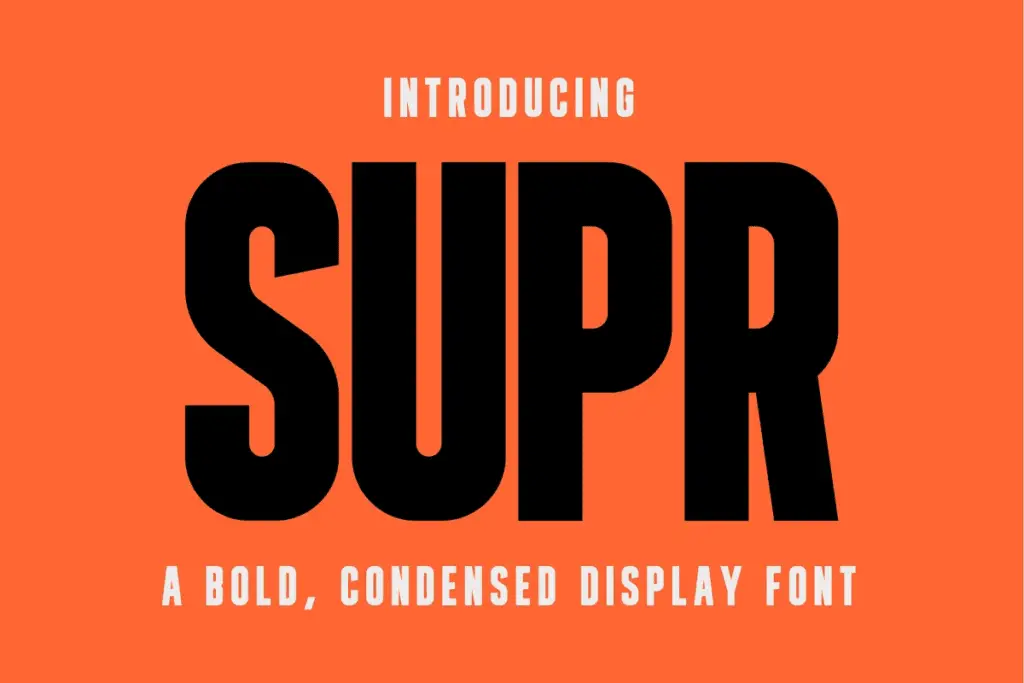
Mohan Bold Font
The Mohan font has a strong, bold look that makes it perfect for headlines and logos. Its minimalistic and elegant design adds a touch of elegance with fun to any project. The font also features a wide range of alternative characters and ornaments, as well as multilingual support and unique ligatures. Mohan is the perfect choice for any project that requires a bold, minimalist, elegant, and fancy font!
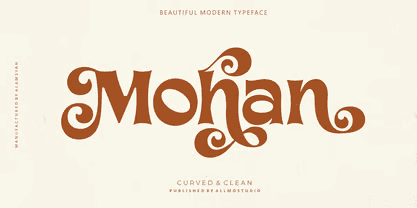
Cheapsman Sans Serif Bold Font
Cheapsman Font is a bold and eye-catching sans serif display font with four styles: Regular, Outline, Extruded, and Slant. This font has a built-in range of alternate letters and ligatures, allowing users to create unique and striking designs with ease. It features a strong and powerful look that makes it ideal for headlines and logos. Cheapsman Font is a great choice for any project that needs a bold and dynamic font.
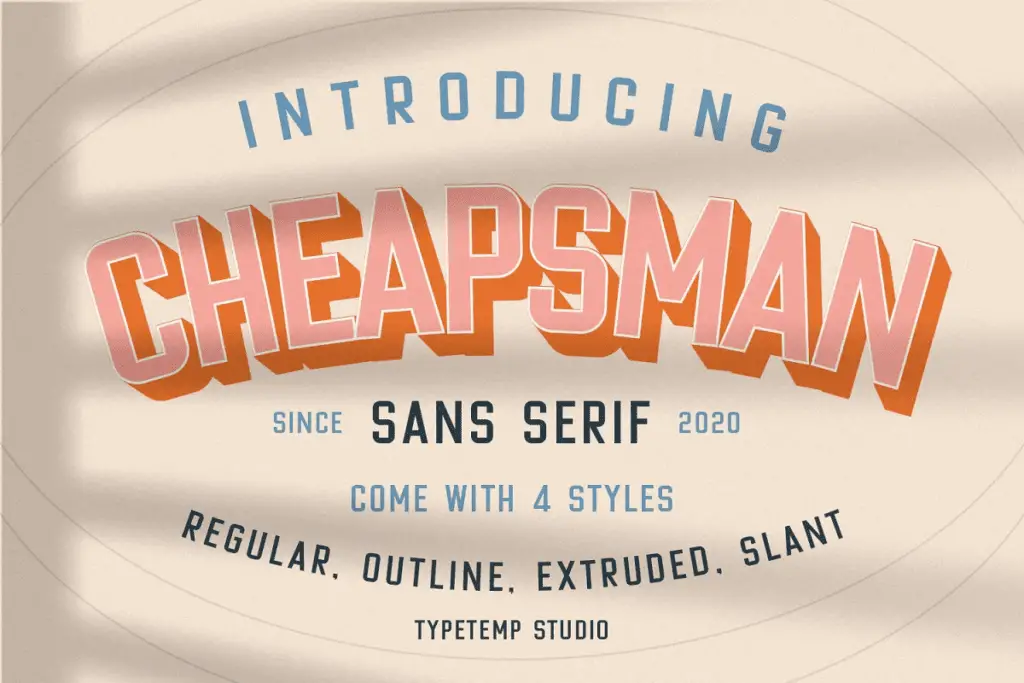
Tangers Font
The Tangers font is a bold serif font with a retro look and feel. The font has full range of ligatures and alternate characters, which will help you create amazing designs. The Tangers font is perfect for attention-grabbing headlines and logos because of its bold and stylish look that will make any project stand out!
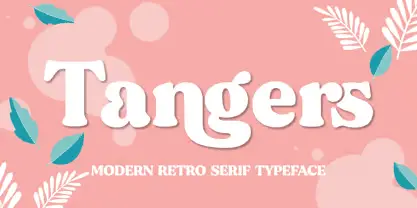
Kiak Serif Font
Kiak is a fun serif font with a modern feel. This font is perfect for headlines, logos, and other typographic needs. It has a bold and eye-catching look that will make any design stand out. Kiak has a timeless yet unique look and it can be used for branding, logo design, posters, packaging, and more It is an ideal choice for those who need a bold and stylish font for their projects.
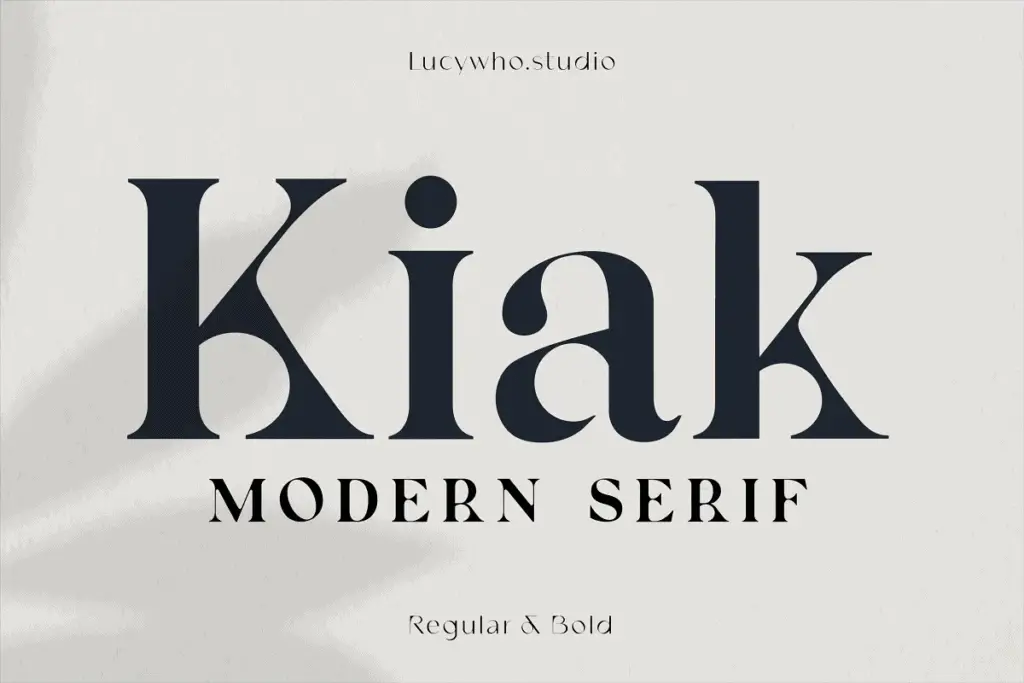
Overview
We hope you enjoyed these five bold fonts are perfect for creating attention-grabbing headlines! Each font has its own unique characteristics and can be used to create a different look and feel. Understanding how these characteristics can be used to achieve the desired effect is key to creating the best possible headlines. With these five bold fonts, you can create headlines that will draw readers in and convey a specific message or mood in no time!